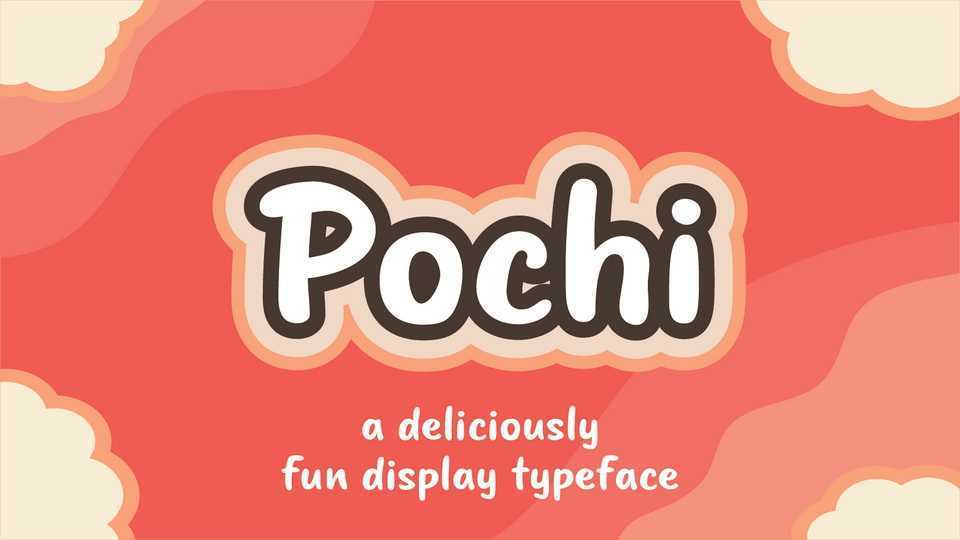
Download Pochi font, a bold, fun and playful display typeface with a handwritten feel. Pochi features cute, soft and bubbly letterforms that radiates a casual and friendly look.
Designer: Emman Ludovice